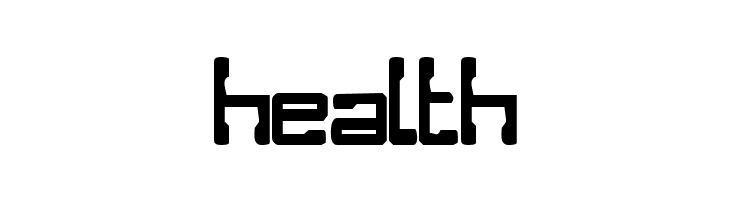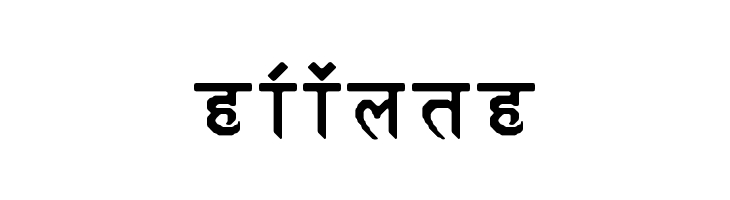
A bold, distressed font with a vintage, cut-out style.
A sketch-like, hand-drawn decorative font with an artistic and textured appearance.
A bold, playful font with rounded, thick strokes and a friendly appearance.
A bold, geometric font inspired by traditional scripts with sharp, angular characters.
A modern sans-serif font with a clean, geometric style and uniform stroke widths.
A bold, geometric font with a modern and industrial style.
A modern, geometric sans-serif font with balanced character widths.